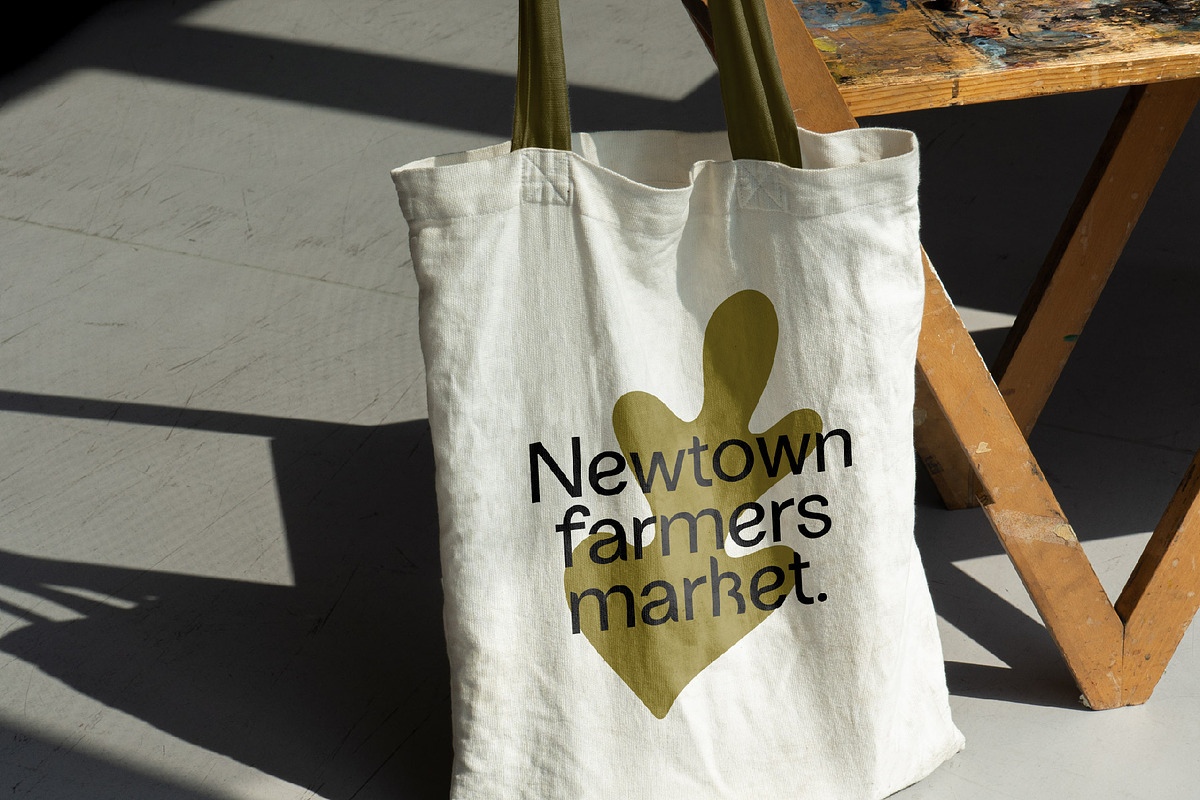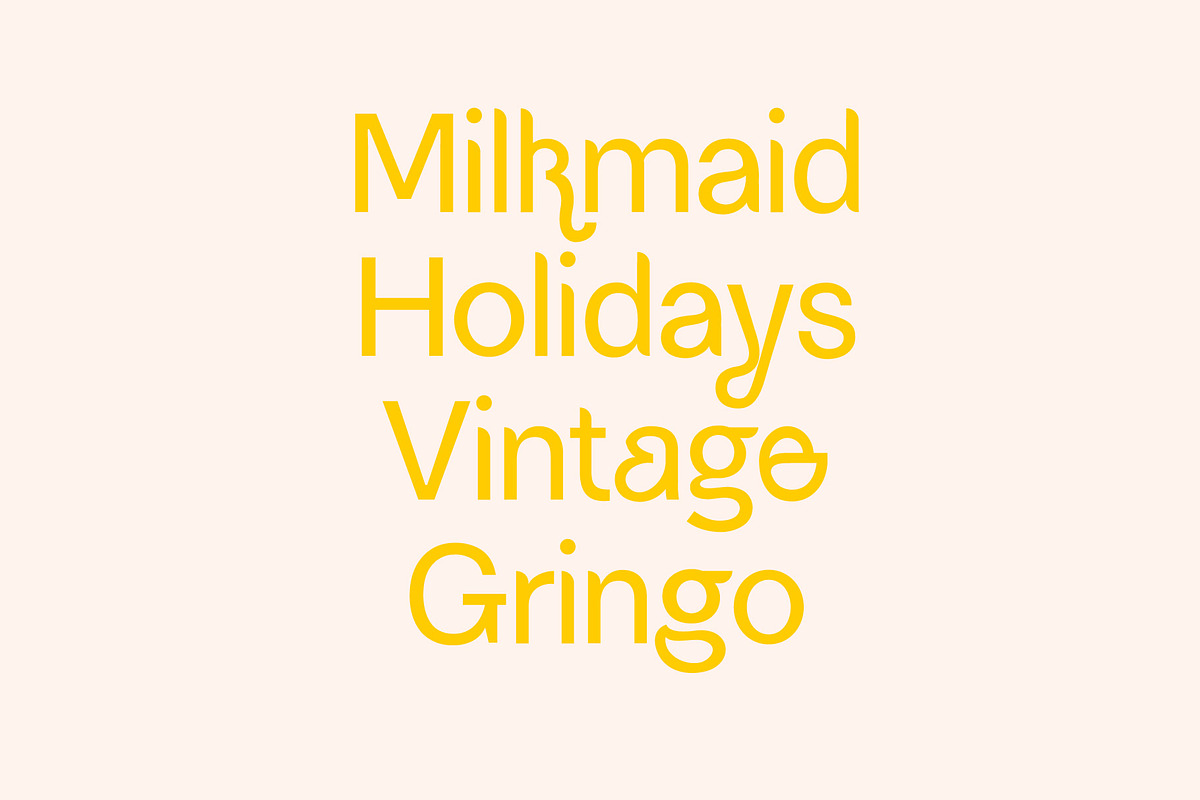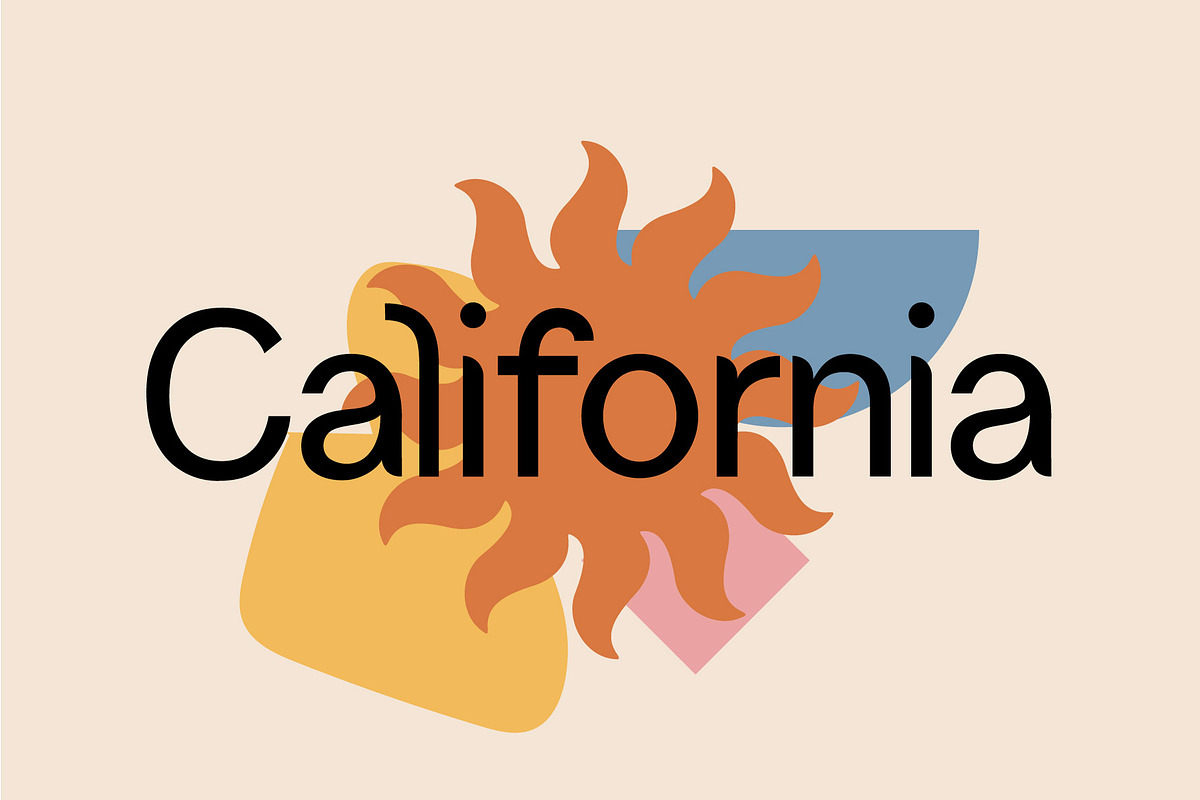
Babe Sans Font
Babe Sans is a clean, legible, modern like a classic san but these glyphs have style! Groovy curves and funky alternates make for a unique and memorable font. It can be used to create anything as you wish, logos invitation cards, make scrapbooking, wedding cards, birthday cards, home decor, packaging holiday gifts, party decorations, print on fabrics and so much more.
• uppercase, alternates, numbers, punctuation